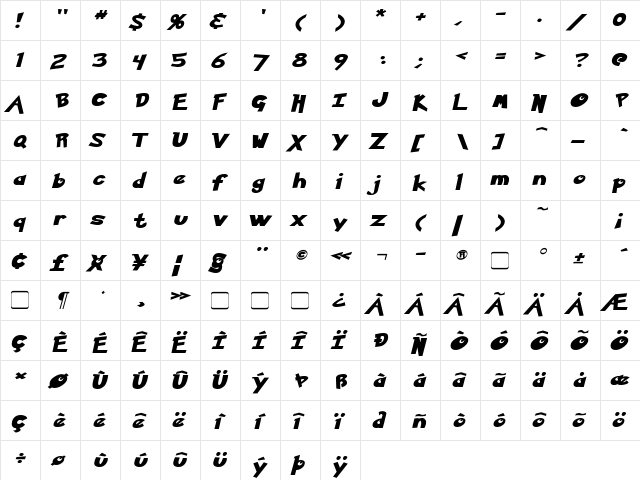
Ketchum Italic
| Foundry | Pixel Sagas |
| Designer | Neale Davidson |
Design Context for Ketchum Typeface
Ketchum is a composed and adaptable typeface that performs quietly and consistently across a wide range of design contexts. Its italic angle brings a sense of urgency and motion to the letterforms.
Pro Tip: Use Ketchum for emphasis, pull quotes, and subheadings where its slanted energy can add rhythm to the layout.